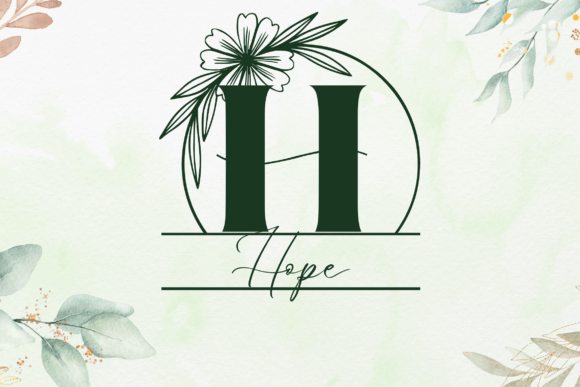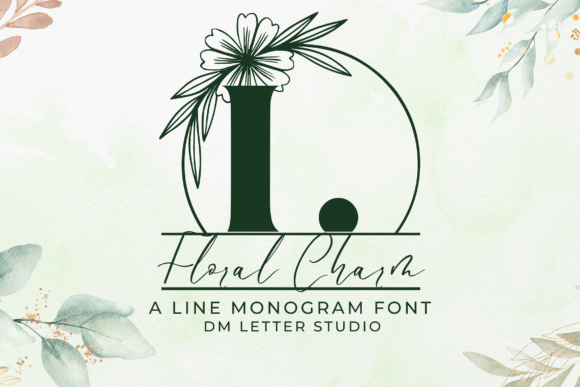
Introducing the Floral Charm Line Monogram Font: Elevate Your Designs with Elegance
Are you looking for a font that exudes sophistication and charm? Look no further than the Floral Charm Line Monogram Font. This elegant serif monogram font features beautiful line-art floral embellishments, perfect for adding a touch of refinement to your designs. In this article, we’ll dive into the details of this stunning font and explore its features, uses, and benefits.
A Perfect Blend of Classic and Modern
The Floral Charm Line Monogram Font strikes the perfect balance between classic and modern design elements. The clean serif structure provides clarity and refinement, while the minimal yet expressive botanical line drawings add a touch of whimsy and charm. This font is ideal for designers and crafters who want to create sophisticated and eye-catching designs that stand out from the crowd.
Key Features of the Floral Charm Line Monogram Font
- Line Art Detailing: Each uppercase letter is paired with beautifully sketched floral line art, adding a delicate touch to your designs.
- Clean Serif Structure: The balanced serif letterforms provide clarity and refinement, making this font perfect for reading and design applications.
- Perfect for Custom Designs: The Floral Charm Line Monogram Font is ideal for creating custom monograms, branding, and stationery that requires a personal touch.
Ideal Use Cases
The Floral Charm Line Monogram Font is versatile and can be used in a variety of design applications, including:
- Wedding Logos: Create stunning wedding logos, monograms, and stationery that exude elegance and sophistication.
- Custom Name Signs: Design beautiful custom name signs, wall art, and decorative pieces for special occasions.
- Upscale Product Packaging: Add a touch of luxury to your product packaging with custom monograms and logos.
- Cricut Crafts: Use the Floral Charm Line Monogram Font to create intricate and beautiful Cricut crafts, such as paper flowers, cards, and decorations.
- Floral-Themed Decor: Design stunning floral-themed decor, such as wall art, lanterns, and garlands, that add a touch of elegance to any room.
The Floral Charm Line Monogram Font offers several benefits for designers and crafters, including:
- Unique and Exclusive: This font is a unique and exclusive design that will set your work apart from others.
- Customizable: The font can be customized to fit your design needs, allowing you to create unique and personalized designs.
- High-Quality: The font is of high quality, ensuring that your designs look professional and polished.
The Floral Charm Line Monogram Font is a stunning and elegant font that is perfect for designers and crafters who want to add a touch of sophistication to their designs. With its beautiful line-art floral embellishments, clean serif structure, and versatility, this font is ideal for a wide range of design applications. Whether you’re creating wedding logos, custom name signs, or upscale product packaging, the Floral Charm Line Monogram Font is sure to impress.